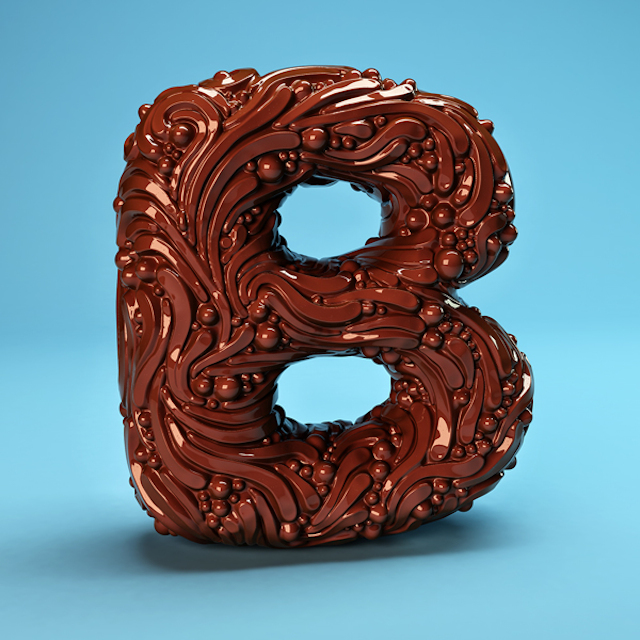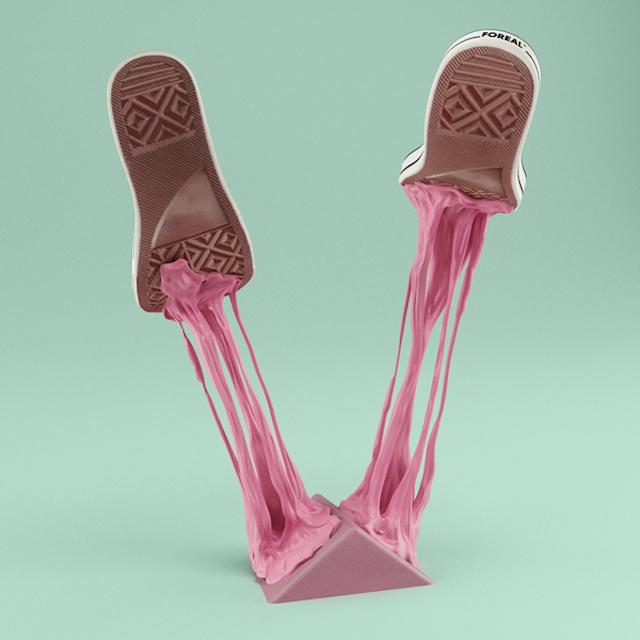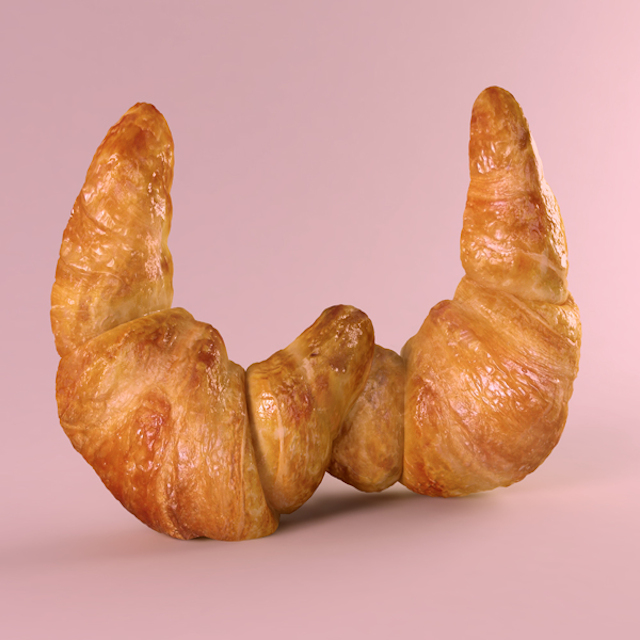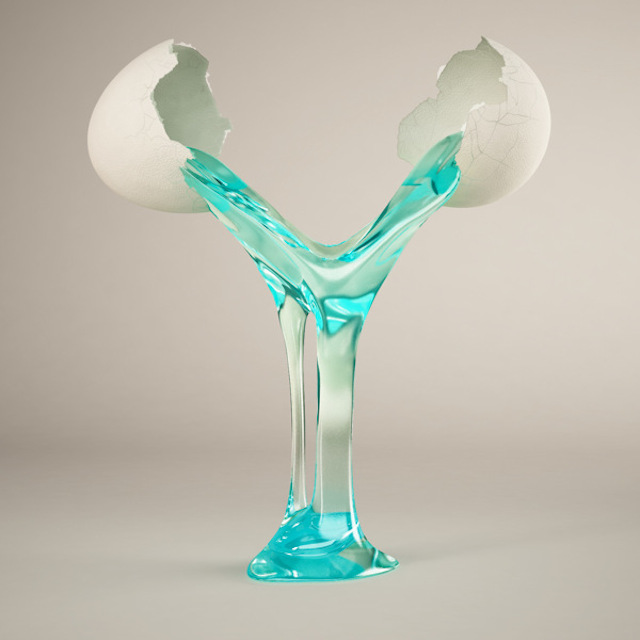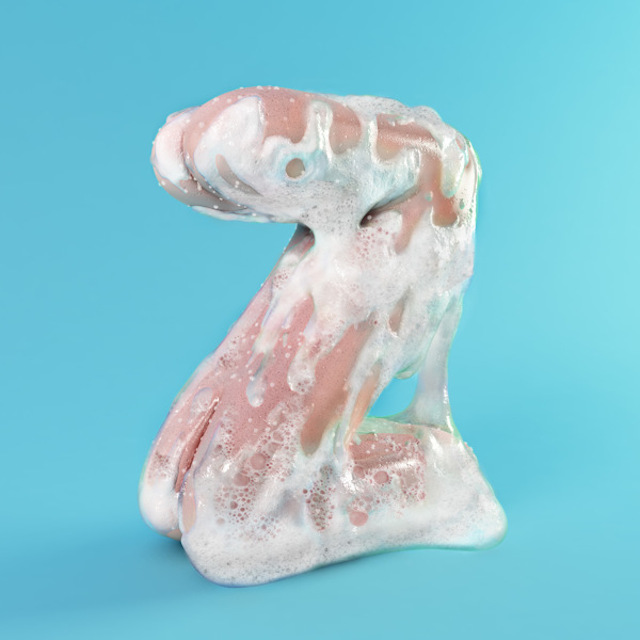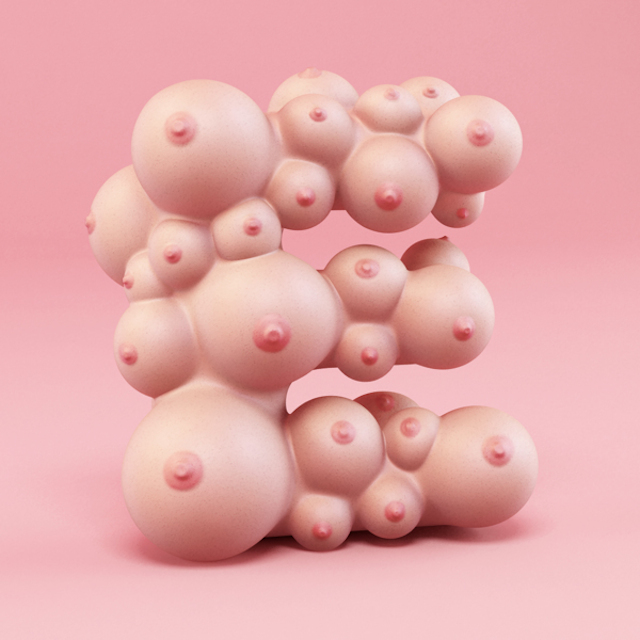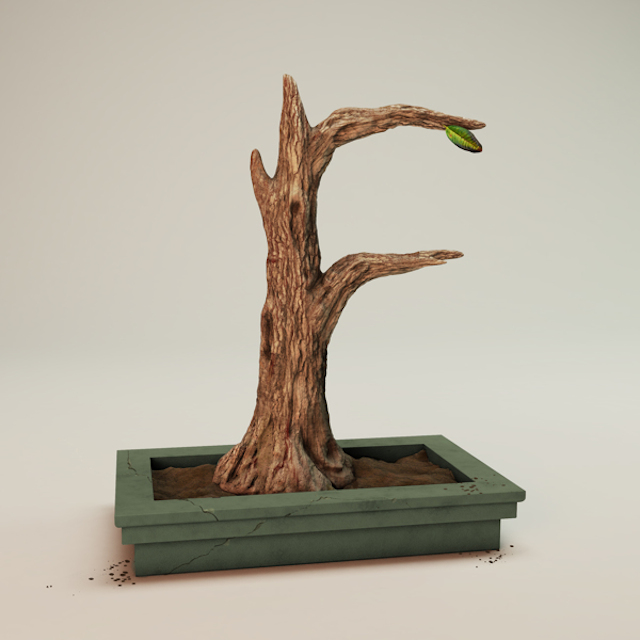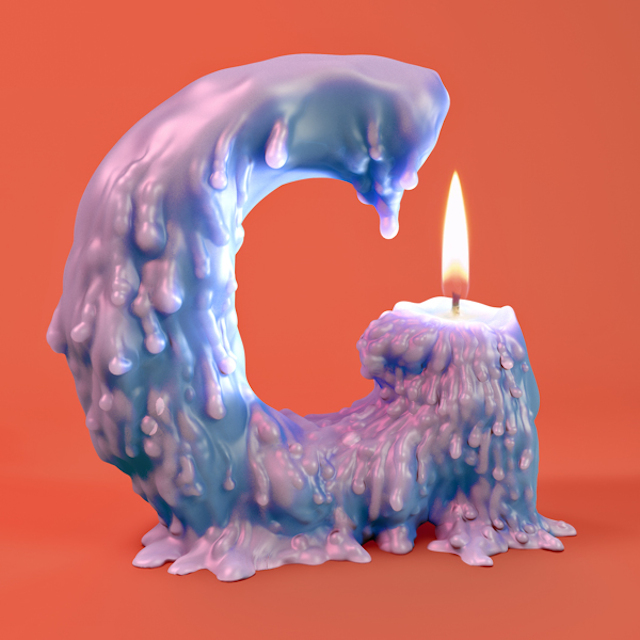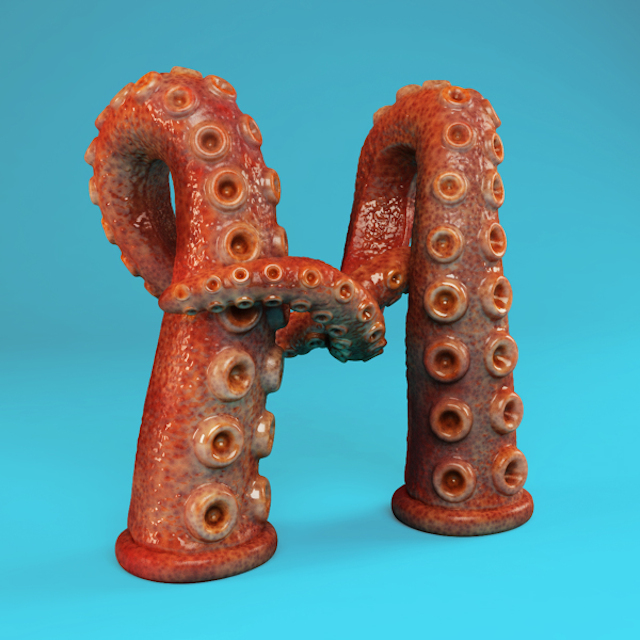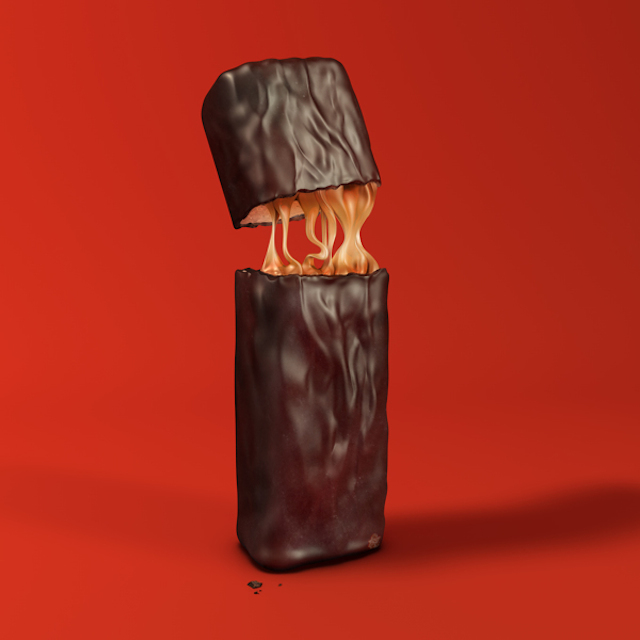
They chose a letter and sculpted it!
The 24 letters of the alphabet have always been a great basis to experiment and develop skills, find new ways of how forms, such as letters, can be built and seeen. This is what Forealâ„¢ do in a regular basis, inventing new playgrounds with the help of their 4D software. The main goal of this project is a playful execution of a self-initiated project that 'helped them to gain some significant experience in sculpting techniques while having a lot of fun.' Check their full typographic work here.